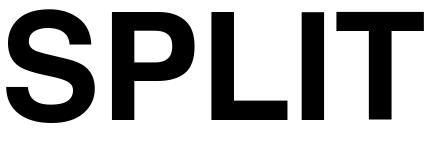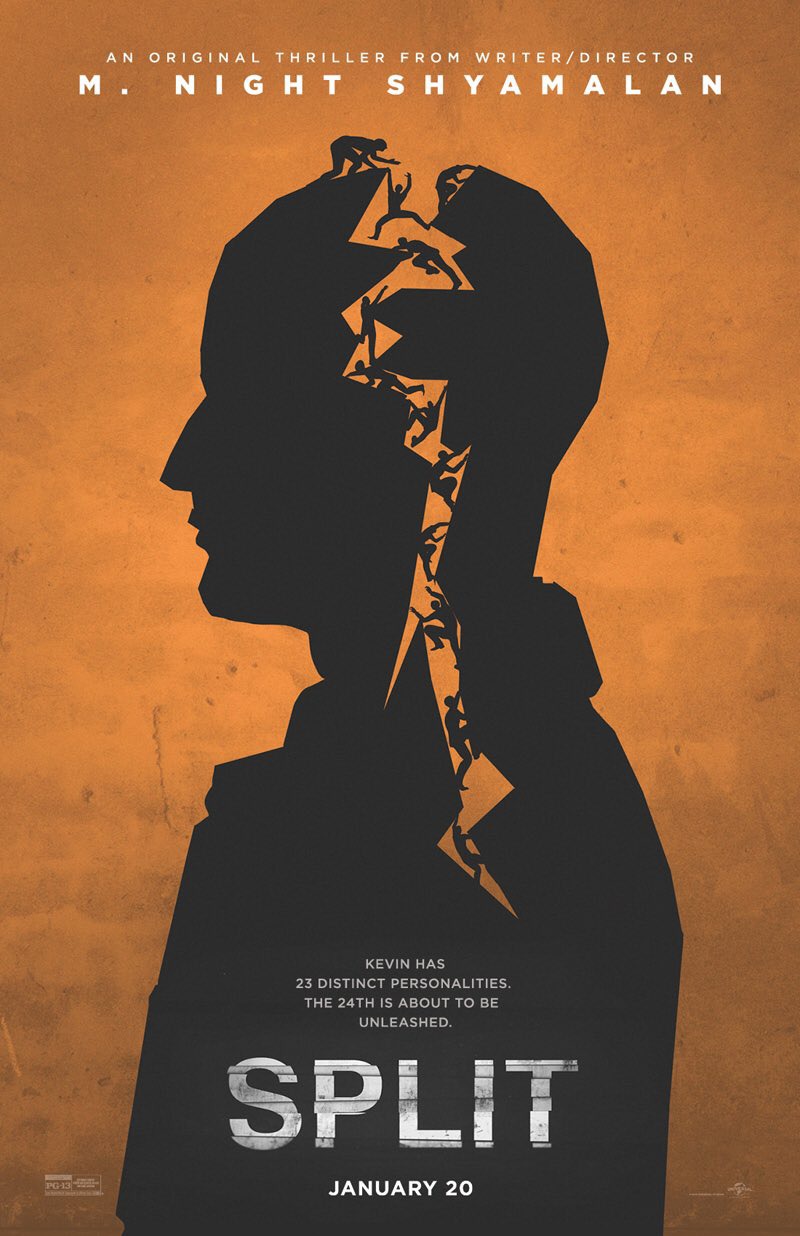
Fonts in UseSplit is a psychological horror film directed by M. Night Shyamalan, starring James McAvoy as a man with 23 different personalities who kidnaps three teenage girls.
The font used in the title "Split" appears to be a heavily altered version of Helvetica Bold. To replicate it, one can utilize Coolvetica, a sans-serif font that draws inspiration from American logo designs of the 1970s. A variety of styles can be obtained for free from the Fonts Used Section. While the complete font family's license can be purchased here.